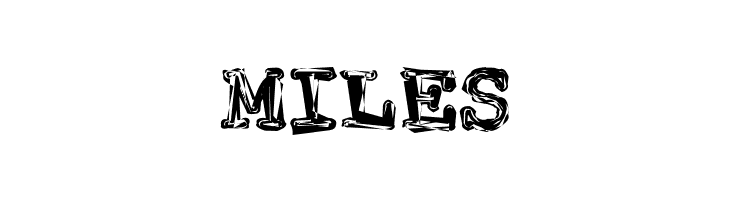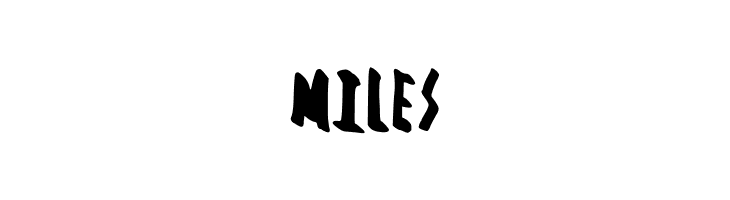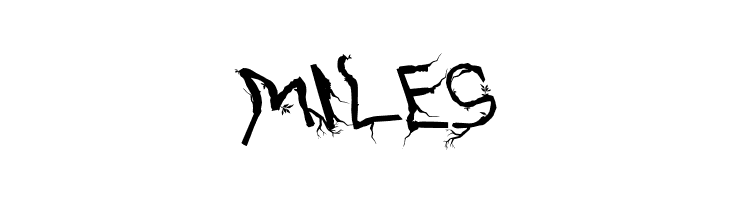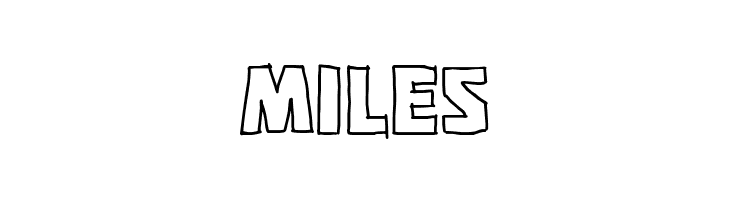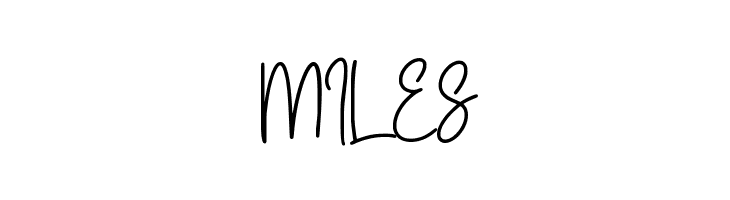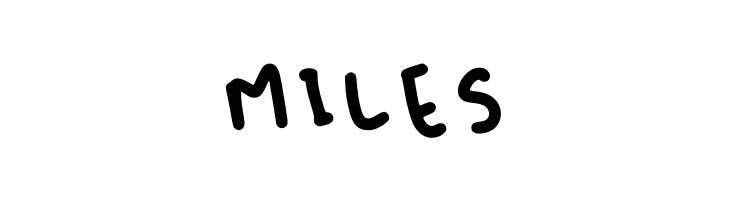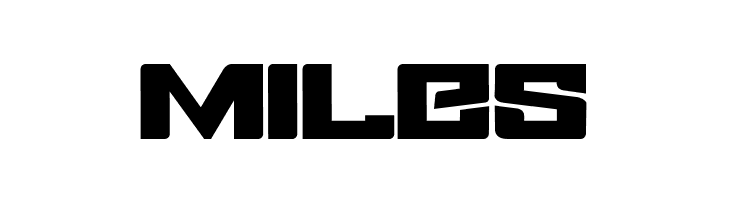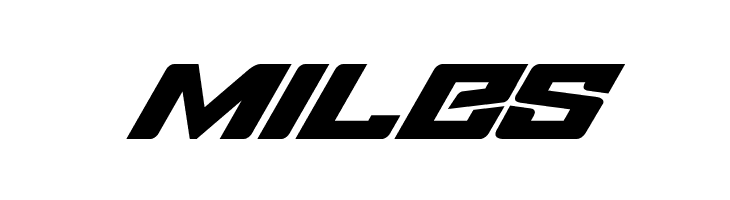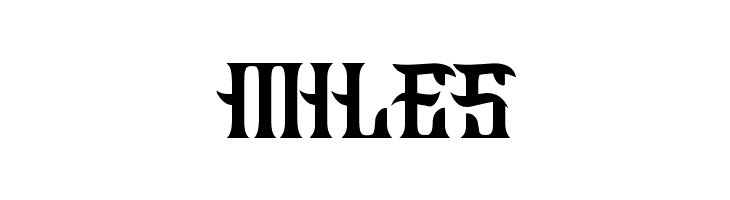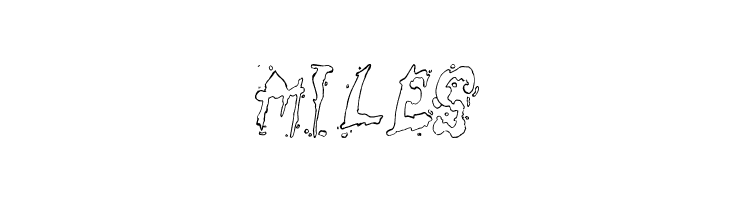
A decorative font with leaf and vine embellishments, offering a whimsical, organic style.
A bold, decorative font with animal silhouettes integrated into each character.
A distressed, grunge-style font with a textured, vintage appearance.
A decorative font with floral and swirl embellishments.
A decorative font with intricate, ornamental uppercase letters and streamlined lowercase characters.
An organic, vine-like decorative font with intricate details.
A decorative font inspired by vines and branches, featuring organic and intricate designs.
A bold, dynamic font with a hand-drawn, energetic style.
A bold, geometric font with thick strokes and tight spacing, perfect for impactful designs.
A bold, high-contrast font with a vintage yet modern appeal.
A playful, handwritten font with flowing, cursive-like strokes and a modern aesthetic.
Bold, graffiti-inspired display font with rough, expressive letterforms.
A bold, gothic-inspired font with sharp, angular lines and a modern twist.
A bold, modern blackletter-inspired font with sharp, angular strokes.
A bold, graffiti-inspired font with sharp, angular lines and dynamic flow.
A bold, hand-drawn font with a playful and textured appearance.
A bold, playful font with a hand-drawn, distressed look and three-dimensional effects.
A bold, hand-painted style font with dynamic, brush-like strokes.
A playful handwritten font with a casual and friendly style.
A bold, geometric font with a futuristic, industrial style.
A bold, italicized font with sharp, angular lines and a futuristic style.
A bold, handwritten-style font with thick, expressive strokes.
A bold, distressed font with a vintage, hand-printed look.
A rugged, distressed font with a brush-like texture and jagged edges.
A playful, hand-drawn font with bold outlines and quirky character designs.
Bold, angular display font with vintage and playful character.
A bold, rugged, hand-drawn style font with thick, uneven strokes.
A playful, handwritten font with bold, rounded strokes and a casual style.
A bold, hand-painted style font with an expressive and artistic appearance.
A dynamic and flowing script font with elegant, cursive letterforms.